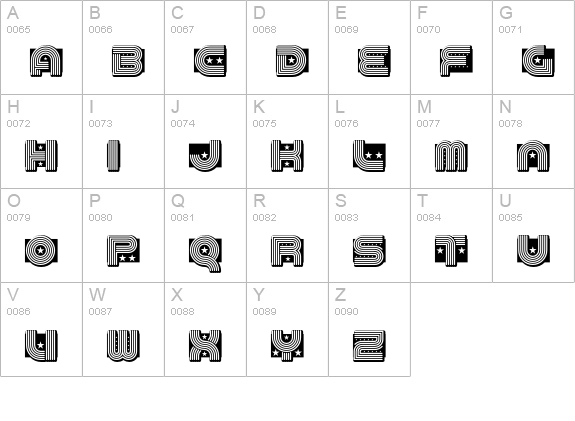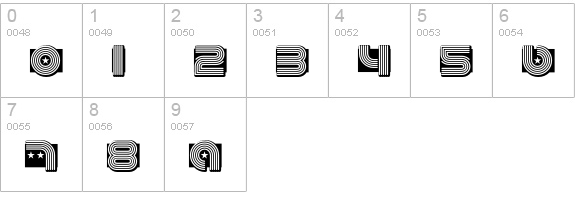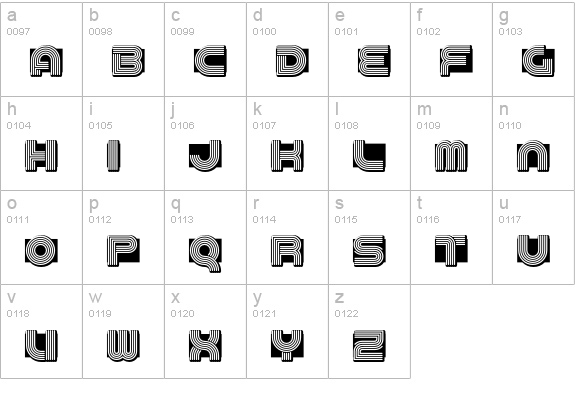
MaxiGroove Font Details
MaxiGroove font is a stylish and modern typeface that combines elegance with a touch of playfulness. This versatile font is perfect for a wide range of design projects, from branding to advertising to social media graphics. With its clean lines and distinct personality, MaxiGroove is sure to make your text stand out. The best part? MaxiGroove is completely free! That's right, you can download this amazing font at FontsMarket.com at no cost at all. Whether you're a professional designer looking for a new addition to your font library or a hobbyist experimenting with different styles, MaxiGroove is the perfect choice. Don't miss out on this fantastic opportunity to enhance your designs with the unique charm of MaxiGroove font.